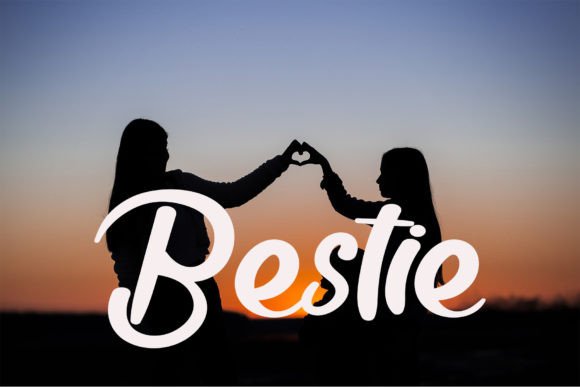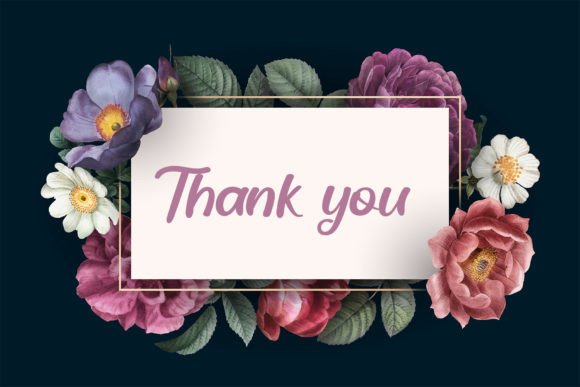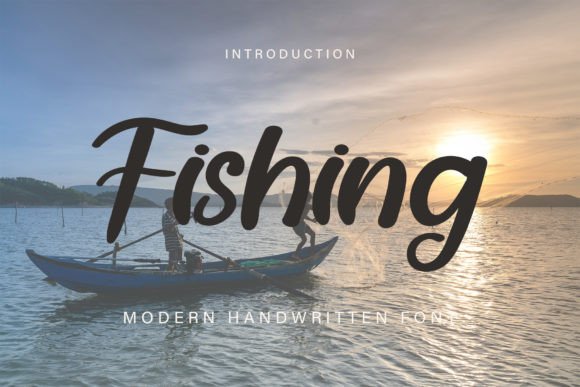
Fishing Font: The Ultimate Guide to a Cool and Modern Handwritten Font
Fishing Font is a cool and modern handwritten font that has been making waves in the design community. Its versatility and charm have made it a favorite among designers, crafters, and DIY enthusiasts. In this article, we’ll dive into the world of Fishing Font, exploring its features, uses, and benefits. Whether you’re a seasoned designer or a crafting novice, this font has the potential to become your go-to font for any occasion.
What is Fishing Font?
Fishing Font is a handwritten font designed to resemble the casual, effortless script of a fisherman’s journal. Its unique blend of rustic charm and modern flair makes it perfect for a wide range of applications, from crafts and digital design to presentations and greeting cards.
Key Features of Fishing Font
- Handwritten style: Fishing Font boasts a genuine handwritten look, complete with subtle imperfections and variations in letter size and spacing.
- Modern feel: Despite its rustic roots, Fishing Font has a distinctly modern edge, making it suitable for contemporary designs and projects.
- Versatility: This font can be used for a wide range of applications, from digital design and presentations to crafting and paper crafting.
- Ease of use: Fishing Font is easy to read and work with, making it perfect for designers and crafters of all skill levels.
Uses for Fishing Font
Fishing Font’s versatility is one of its greatest strengths. Here are just a few ideas for using this amazing font:
- Crafts: Use Fishing Font to add a personal touch to your scrapbooking, card making, and other paper crafting projects.
- Digital design: Fishing Font is perfect for social media graphics, blog posts, and website headers.
- Presentations: Add a touch of personality to your presentations and slideshows with Fishing Font.
- Greeting cards: Create one-of-a-kind greeting cards for special occasions, such as birthdays, holidays, and weddings.
Benefits of Using Fishing Font
So why choose Fishing Font for your next project? Here are just a few benefits:
- Unique look: Fishing Font’s handwritten style sets it apart from more traditional fonts, adding a touch of personality to your designs.
- Flexibility: This font can be used for a wide range of applications, from formal to informal.
- Ease of use: Fishing Font is easy to read and work with, making it perfect for designers and crafters of all skill levels.
- Time-saving: With Fishing Font, you can create professional-looking designs in no time.
Tips for Using Fishing Font
To get the most out of Fishing Font, here are a few tips to keep in mind:
- Experiment with sizes: Fishing Font looks great in a variety of sizes, from small and delicate to large and bold.
- Play with colors: This font pairs well with a range of colors, from bright and bold to muted and pastel.
- Mix and match: Combine Fishing Font with other fonts and design elements to create unique and eye-catching designs.
- Practice makes perfect: Don’t be afraid to experiment and try new things with Fishing Font.
Fishing Font is a cool and modern handwritten font that’s perfect for designers, crafters, and DIY enthusiasts. Its versatility, charm, and ease of use make it a great addition to any design toolkit. Whether you’re creating crafts, digital designs, presentations, or greeting cards, Fishing Font has the potential to become your go-to font for any occasion.
So why not give Fishing Font a try? With its unique look and flexibility, it’s sure to become a favorite in your design arsenal.